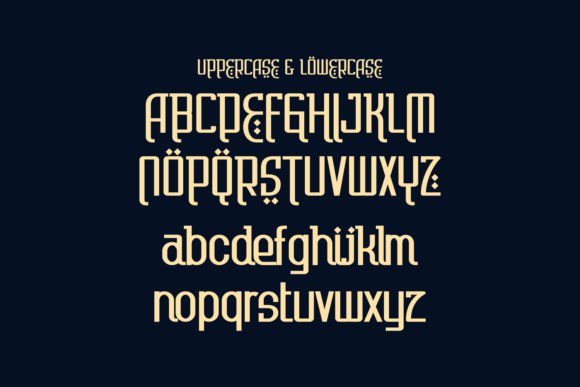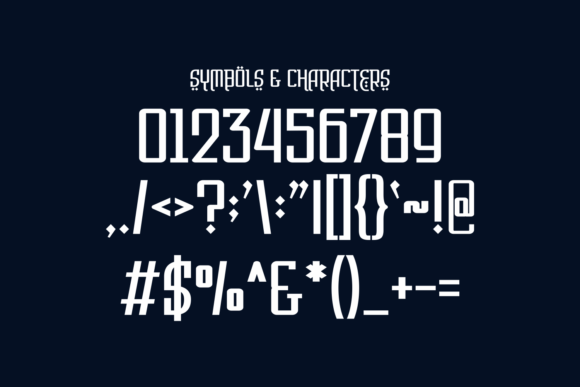
Introducing Arasim Font: The Ultimate Choice for Designers and Crafters
In the world of typography, finding the perfect font that seamlessly transitions between print and screen can be a daunting task. However, look no further than the Arasim Font, a versatile and stylish typeface that is perfectly suited for a wide range of applications. Whether you’re a designer, crafter, or simply someone looking for a reliable font for your branding needs, Arasim is the ideal choice.
Perfectly Suited for Print and Screen
One of the standout features of Arasim Font is its ability to look great on both print and screen. This is a crucial aspect for designers who need to ensure that their work looks fantastic in various mediums. Whether you’re creating a business card, poster, logo, or large-scale artwork, Arasim Font is up to the task. Its clear and crisp lines make it easy to read, even at smaller sizes, while its stylish curves and lines add a touch of sophistication to any design.
Arasim Font is incredibly versatile and can be used for a wide range of design projects. Here are just a few examples of how you can use this fantastic font:
- Branding: Create a lasting impression with Arasim Font, perfect for logos, business cards, and letterheads.
- Print Materials: Use Arasim Font for posters, flyers, brochures, and magazines to add a touch of elegance.
- Digital Media: Arasim Font is optimized for screen use, making it ideal for website headers, social media graphics, and digital advertisements.
- Merchandise: Add a professional touch to your t-shirts, mugs, and other merchandise with Arasim Font.
Key Features of Arasim Font
Arasim Font comes with a range of features that make it an attractive choice for designers and crafters. Here are some of the key features:
- Uppercase & Lowercase: Arasim Font includes both uppercase and lowercase letters, giving you flexibility with your designs.
- Numbers: The font includes a range of numbers, making it perfect for creating invoices, receipts, and other numerical designs.
- Punctuation: Arasim Font includes a range of punctuation marks, ensuring that your designs look professional and polished.
Why Choose Arasim Font?
So, why should you choose Arasim Font for your design needs? Here are just a few reasons:
- Versatility: Arasim Font can be used for a wide range of design projects, from print materials to digital media.
- Style: The font’s stylish curves and lines add a touch of sophistication to any design.
- Readability: Arasim Font is clear and easy to read, even at smaller sizes.